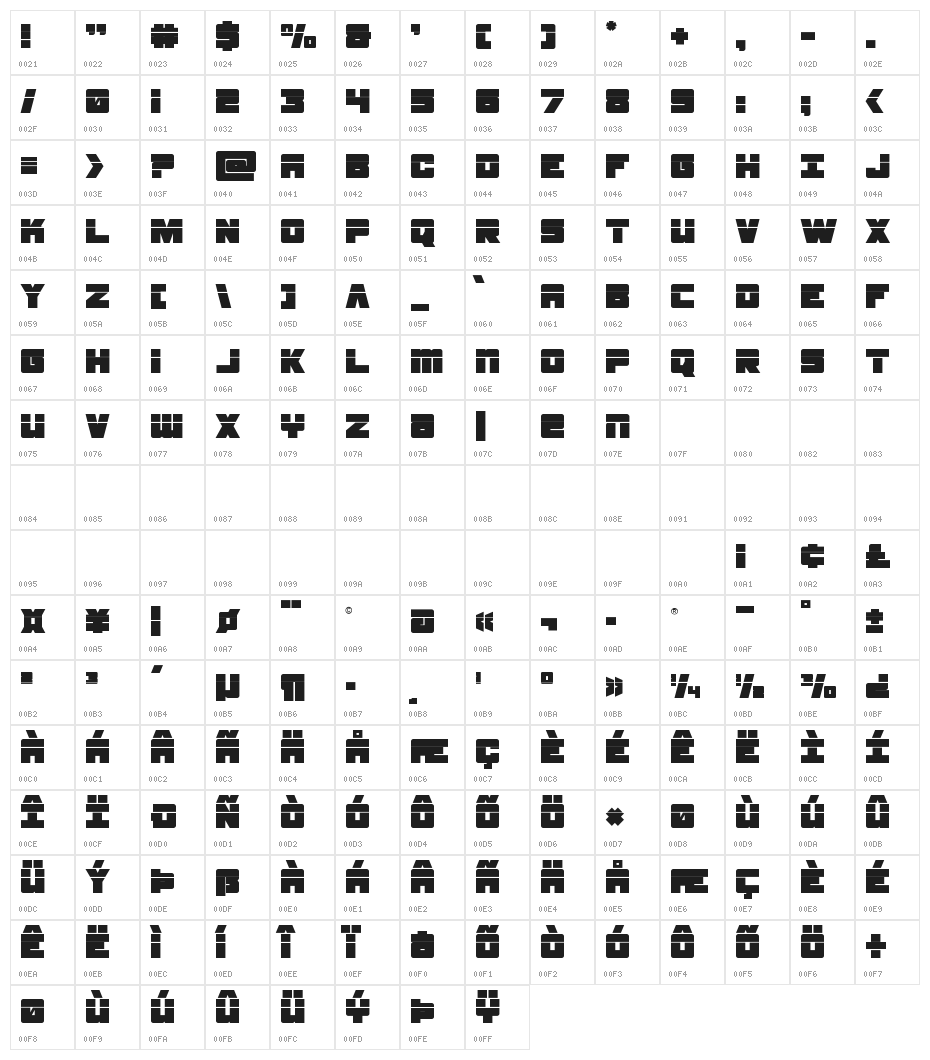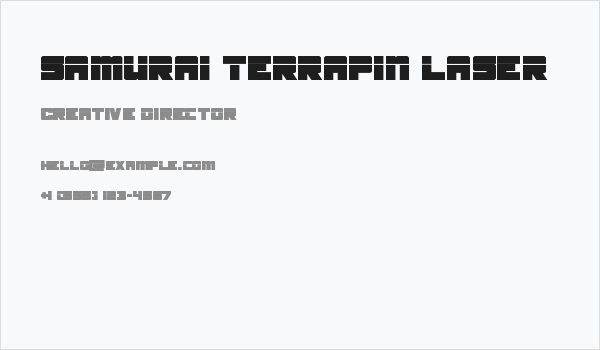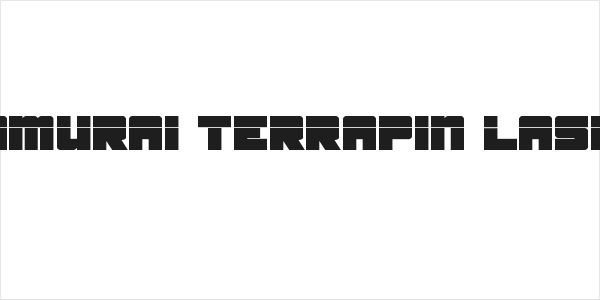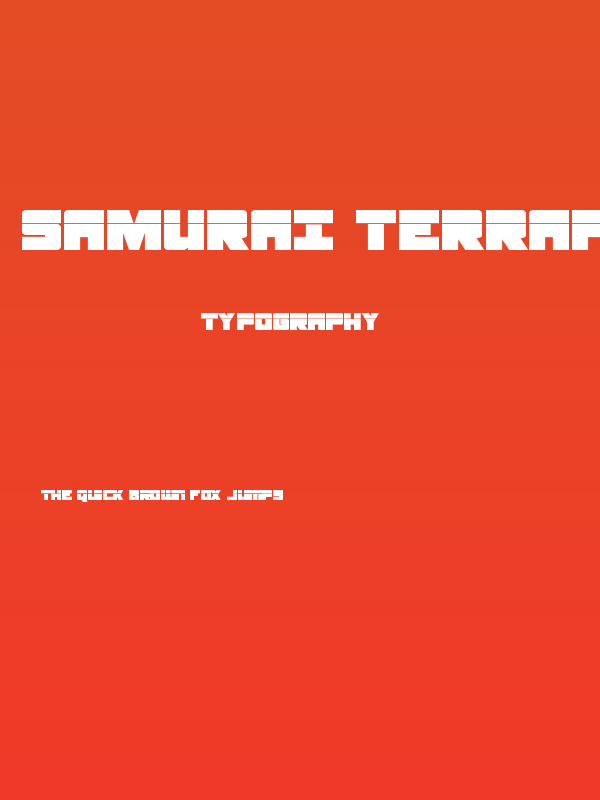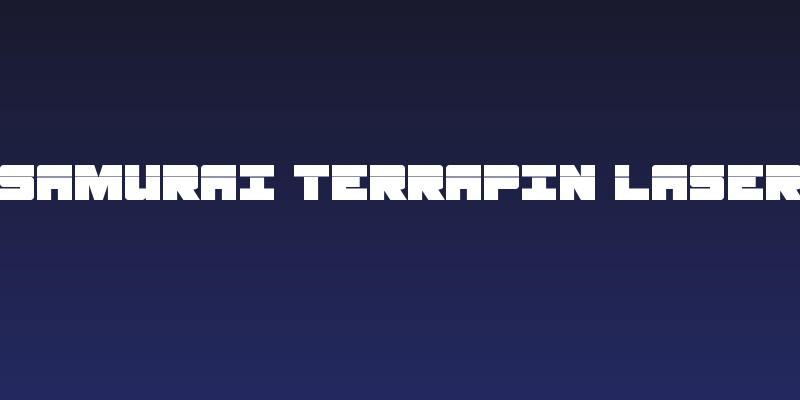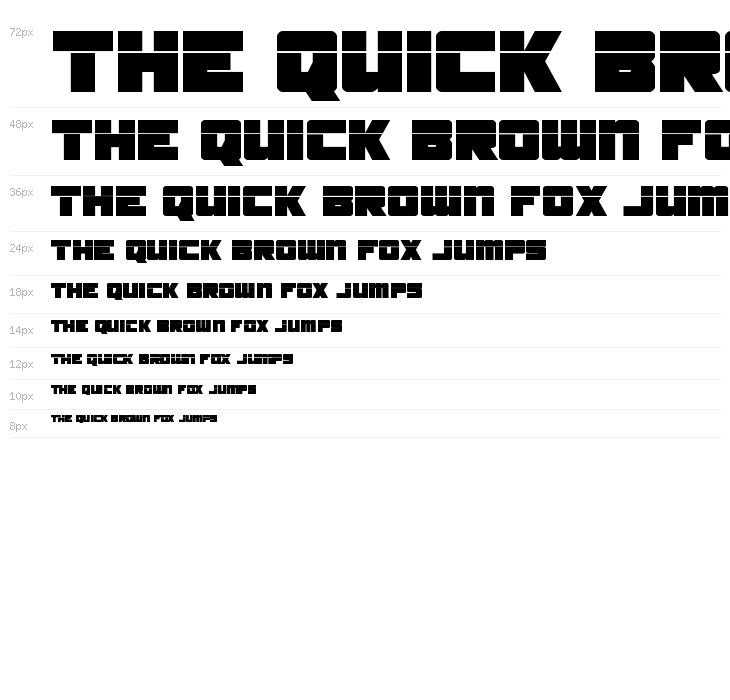
Samurai Terrapin Laser Font
Samurai Terrapin Laser Description
This font features a bold and geometric style with a futuristic and industrial feel. The characters are blocky and angular, with sharp edges and a uniform thickness throughout. The uppercase and lowercase letters maintain a consistent height, creating a cohesive and structured appearance. The numerals and special characters follow the same design principles, ensuring a seamless integration across all elements. The font's design is reminiscent of digital or sci-fi themes, making it suitable for projects that require a modern and edgy look.
| Proposed Projects | Ideal for sci-fi themed posters, video game titles, tech branding, and digital artwork. |